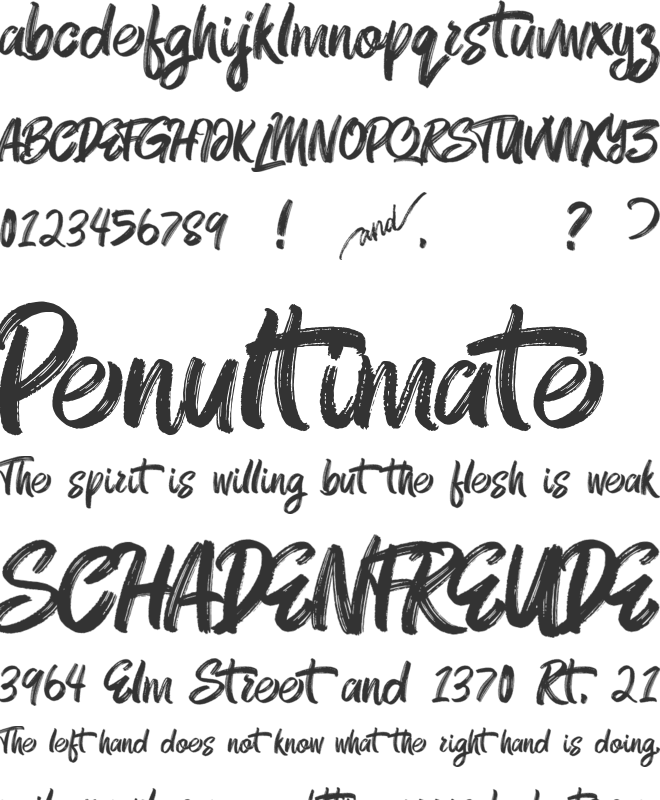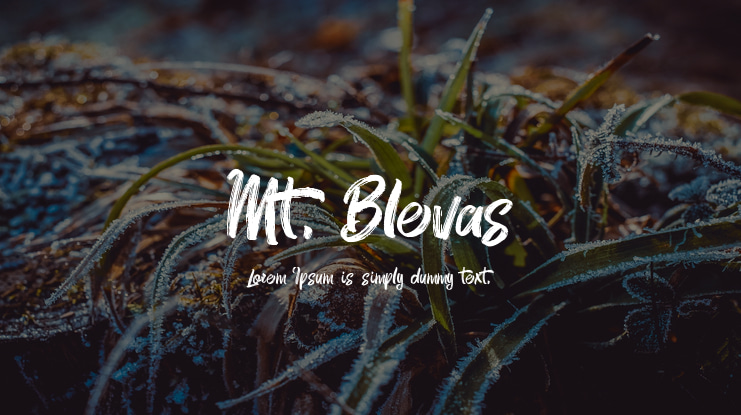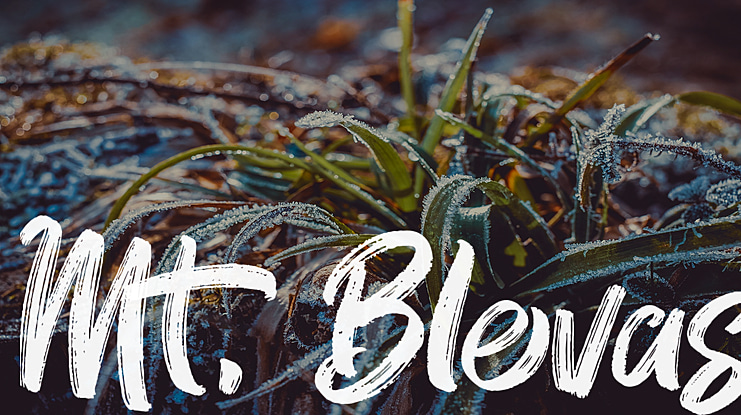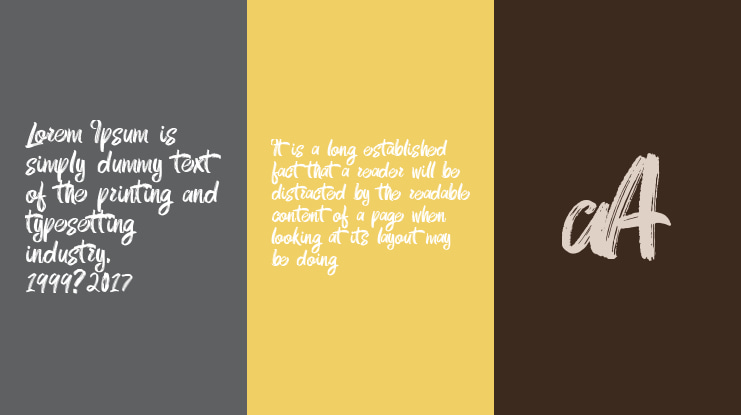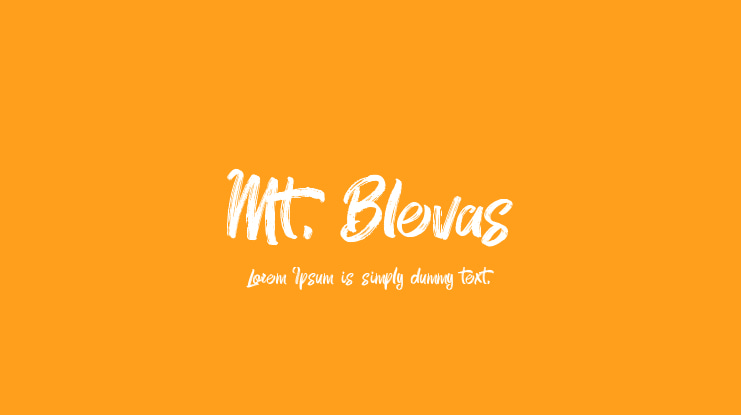
Mt. Blevas Font
- Introducing - Mt. Blevas - Brush-script effects that fits on your project to looks one-of-a kind. 100% FREE for Personal. Donation is Highly appreciated. :) FULL / Commercial Version available at Website: http://www.knackpack.studio/fonts CM: https://creativemarket.com/knackpackstudio